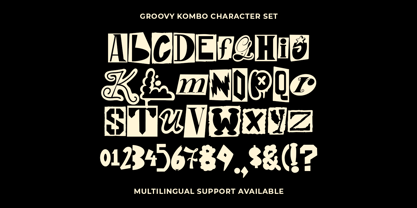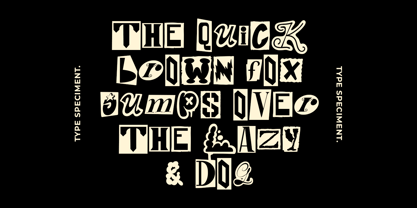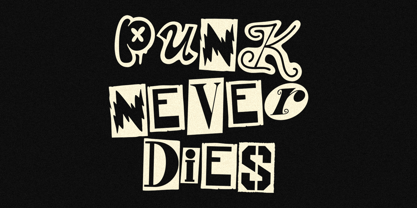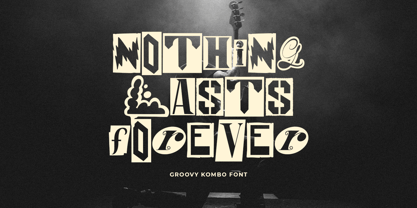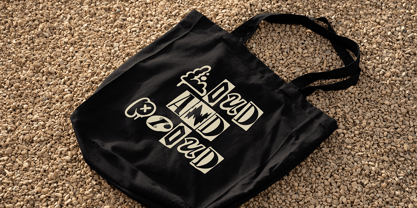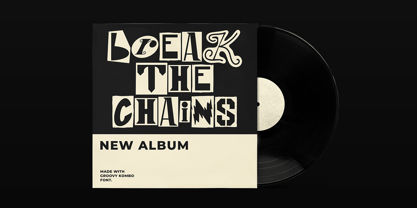
Groovy Kombo
by Groovy Font
The Groovy Kombo Font Family was designed by Ahmad Ginanjar Riyadi and published by Groovy Font. Groovy Kombo contains 1 styles.
Groovy Kombo is a bold and striking block display font that combines various styles of block letters.
This unique font offers a mix of different block letter designs, creating a visually dynamic and versatile typeface.
Whether you're looking to make a statement or add a modern edge to your designs, Groovy Kombo is the perfect choice. Stand out with this eclectic and eye-catching font that brings a fresh twist to your projects!